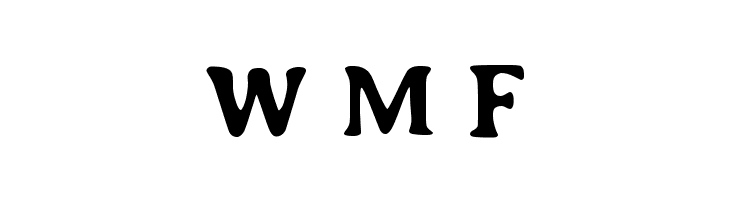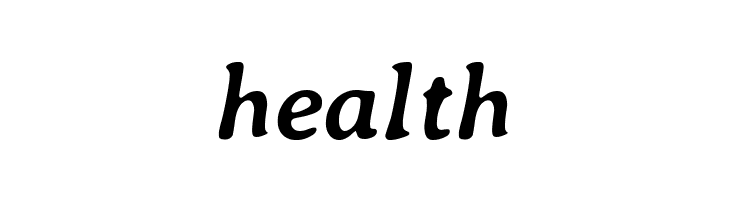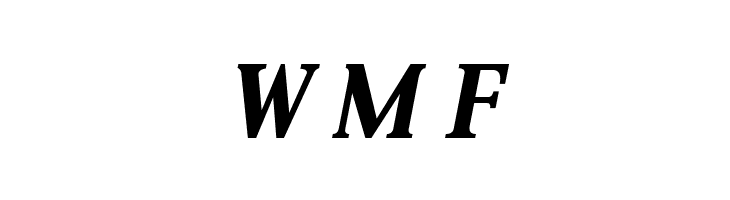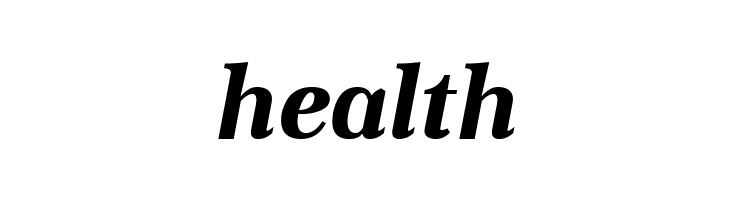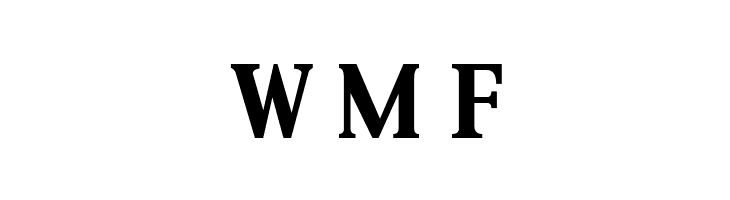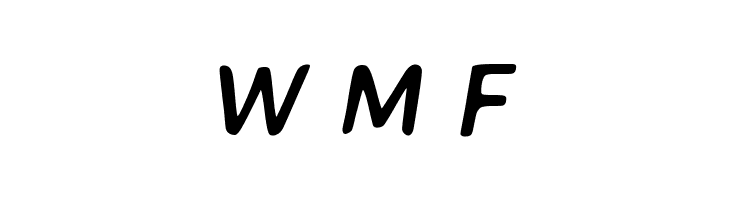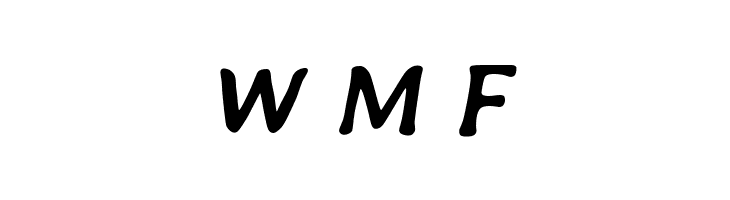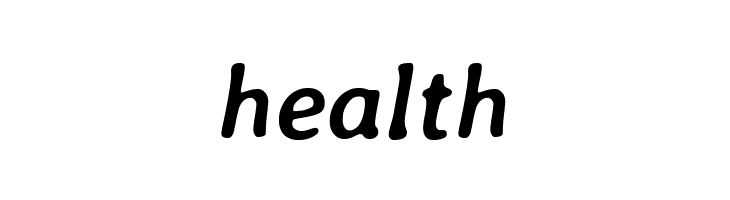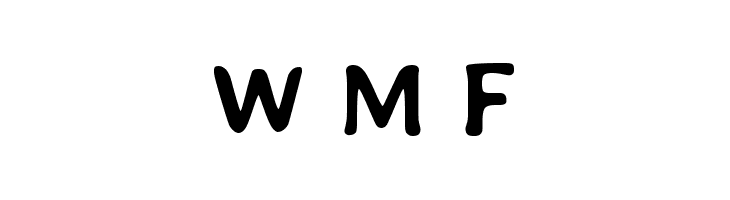
A bold serif font with strong, classic features and excellent readability.
A bold, italic serif font with strong, dynamic strokes.
A playful, rounded font with consistent stroke width and smooth curves.
A bold, italic font with rounded, smooth characters and a modern yet classic style.
A bold, rounded font with a friendly and modern style.
A bold, italicized font with a smooth, rounded, and modern appearance.
A bold, rounded serif font with smooth curves and a modern twist.
A bold, italic serif font with smooth curves and a modern touch.
A bold, friendly serif font with rounded edges and a professional appearance.
A bold, italic serif font with a playful and elegant style.